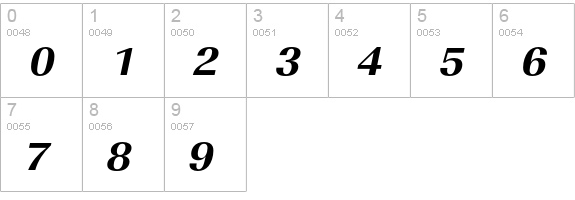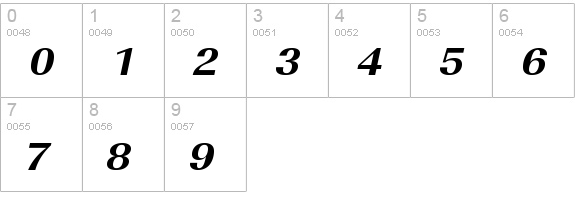
URWImperialTOTExtBolEW Oblique Font Details
URWImperialTOTExtBolEW Oblique is a distinctive, italic variant in the URWImperialTOTExtBolEW typeface family \xE2\x80\x94 well suited to design and typography projects.
URWImperialTOTExtBolEW Oblique is a striking and modern font that exudes elegance and sophistication. Its bold strokes and slanted design give it a sense of dynamism and power, making it perfect for headlines, titles, and other attention-grabbing applications. This versatile font is ideal for projects that require a strong visual impact. What makes URWImperialTOTExtBolEW Oblique even more appealing is that it is available for free download at FontsMarket.com. This means you can easily access and use this beautiful font in your design projects without any cost. Whether you're working on print materials, digital designs, or anything in between, URWImperialTOTExtBolEW Oblique is a fantastic choice that will help your creations stand out. Download it today and add a touch of style and flair to your work.